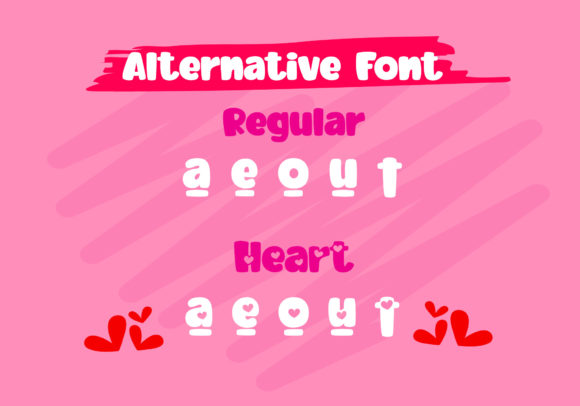
Love Story is a bubbly, chunky lettered and friendly display font. It embodies playfulness and authenticity and is the perfect choice for any children activity or elementary school design.